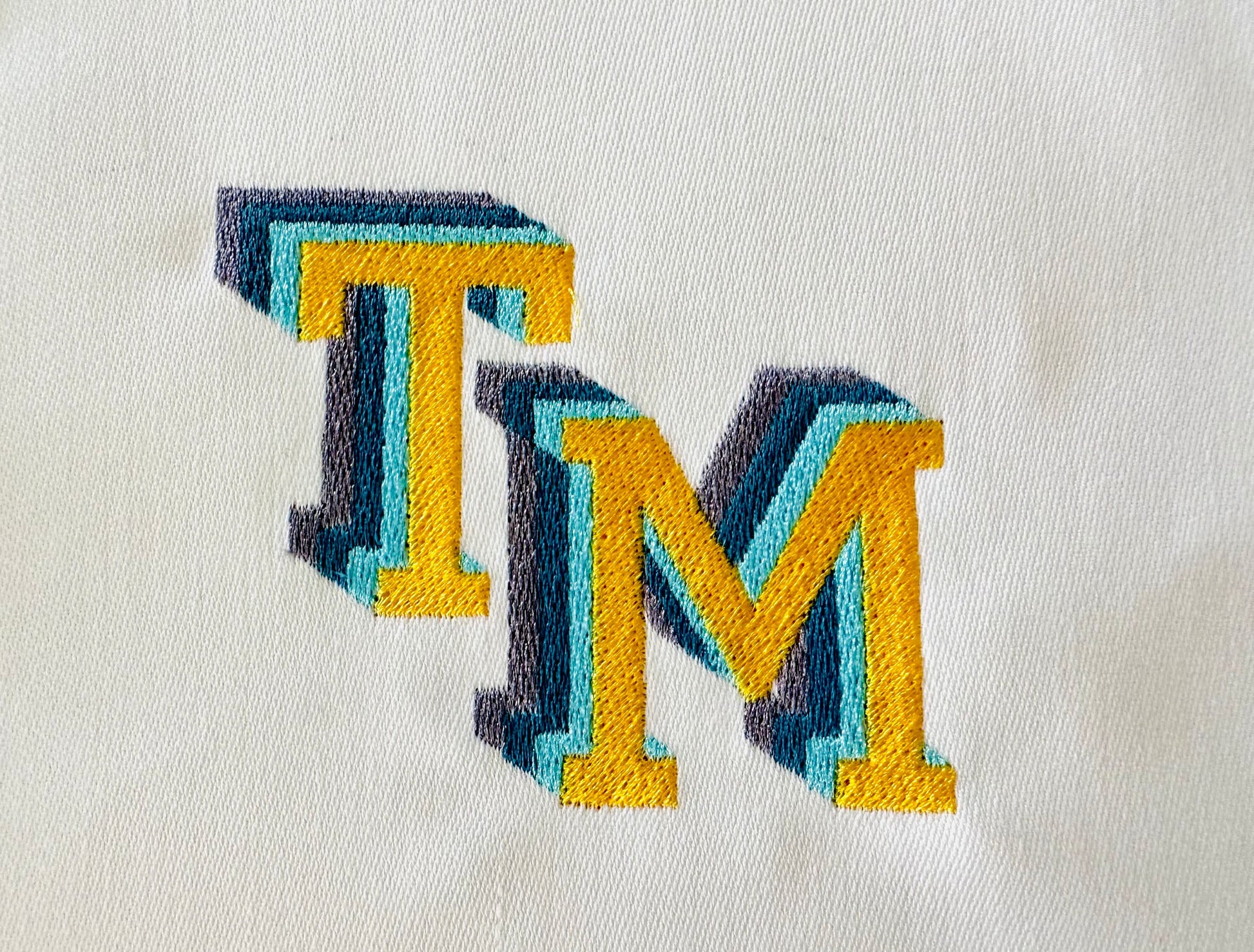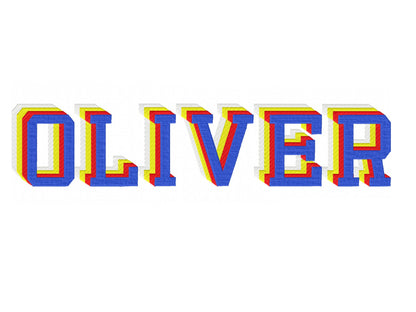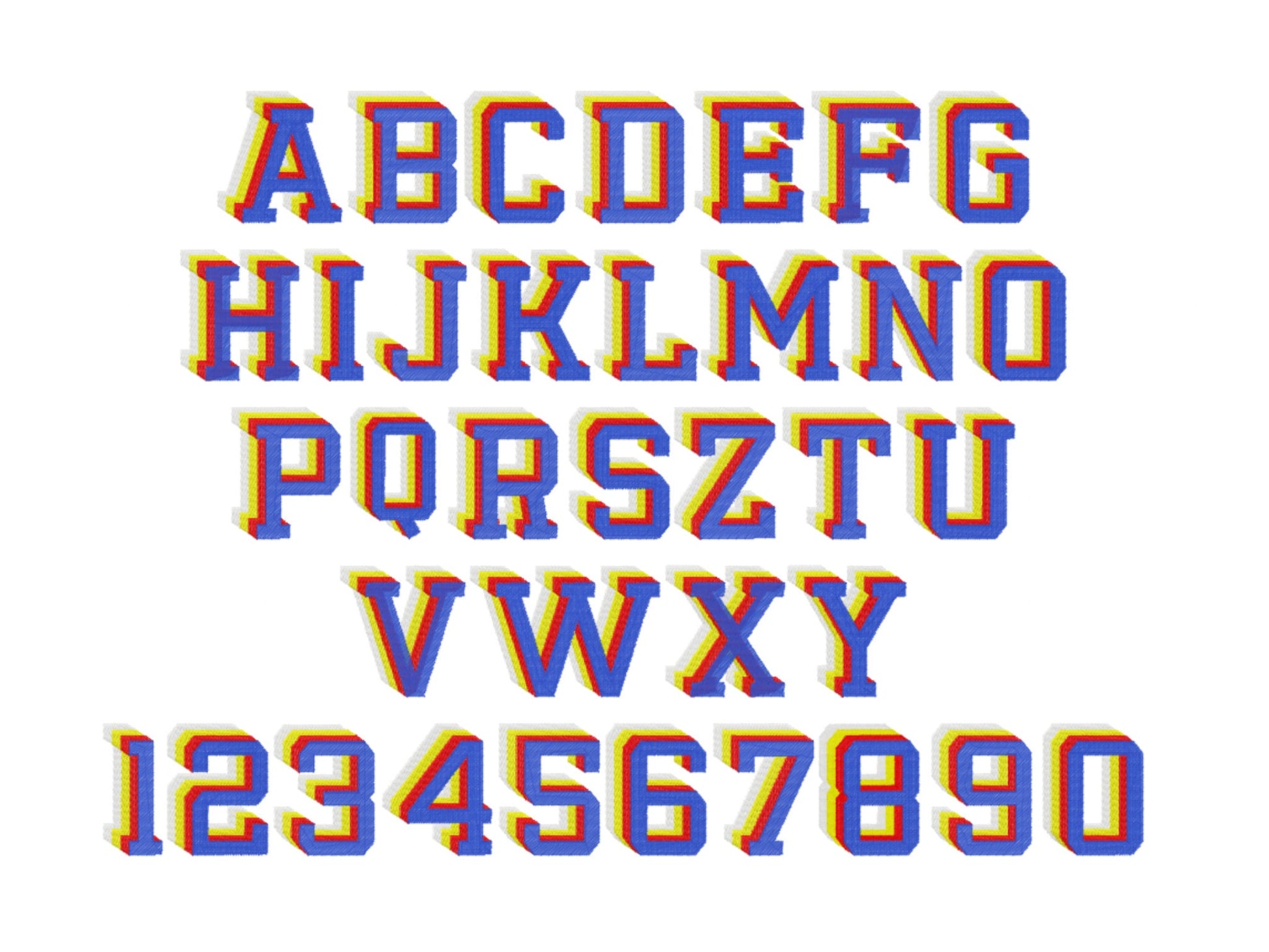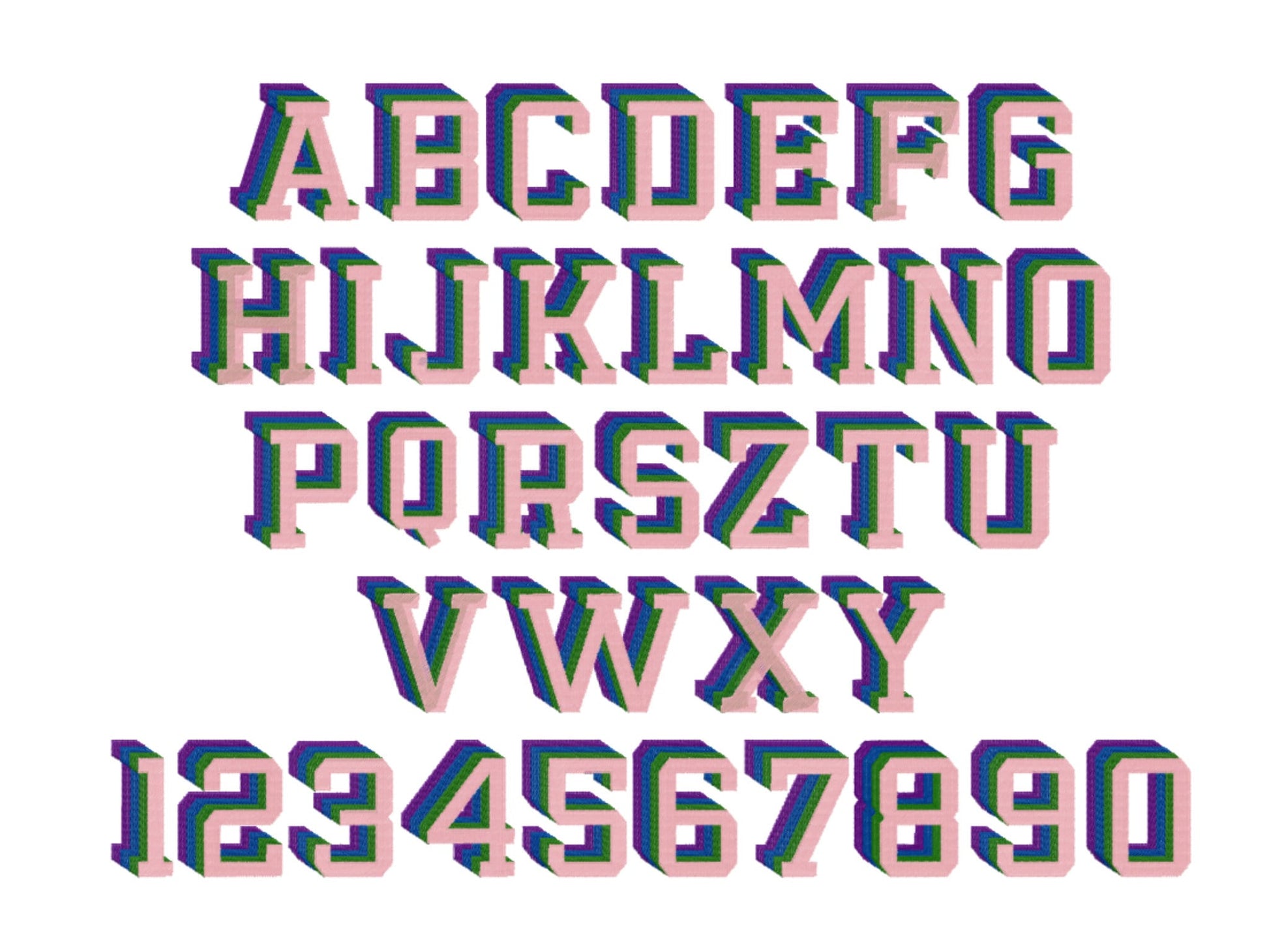
Shadow 4 Layers Pop Art Font
Or click to open the linkA pop art varsity block font with a four-layer shadow, in fill stitch. Fun for team shirts, hoodies, bags and monograms.
Uppercase letters A to Z and numbers 0 to 9. Six sizes: 1.5, 2, 2.5, 3, 3.5 and 4 inches. Four color layers build a bold stacked shadow.
- 4-layer shadow pop art varsity font
- Uppercase A to Z, numbers 0 to 9
- 6 sizes, 1.5 to 4 in